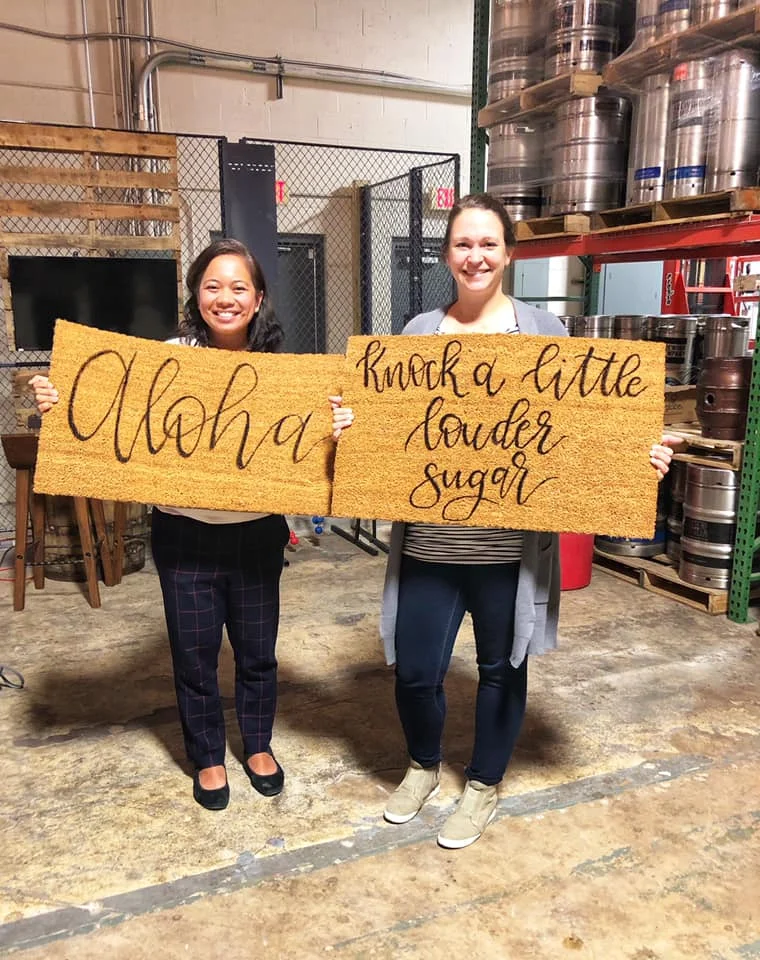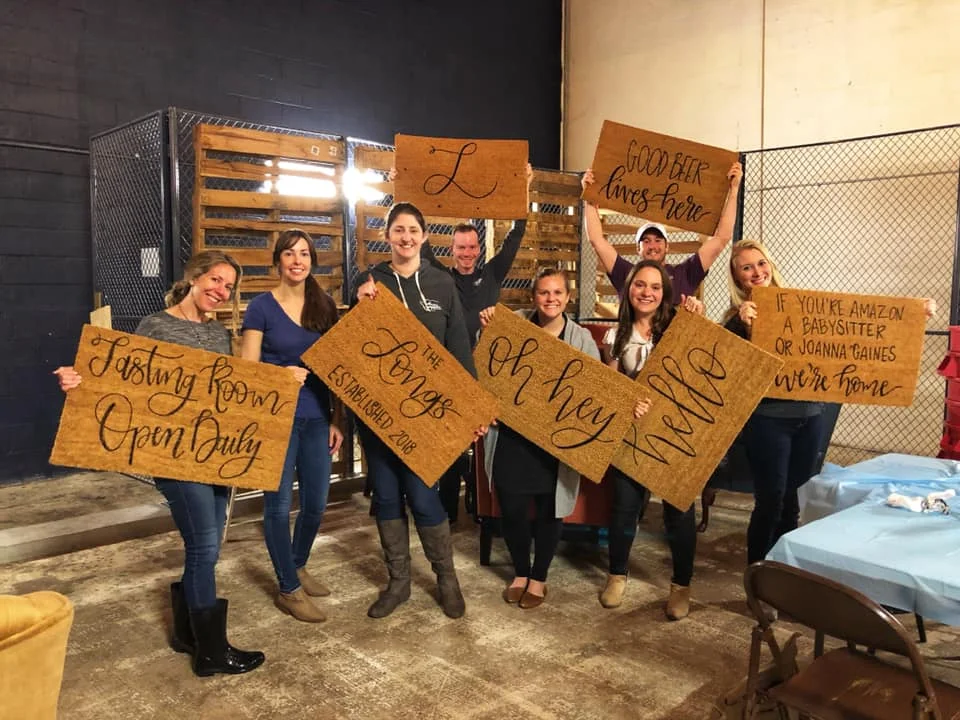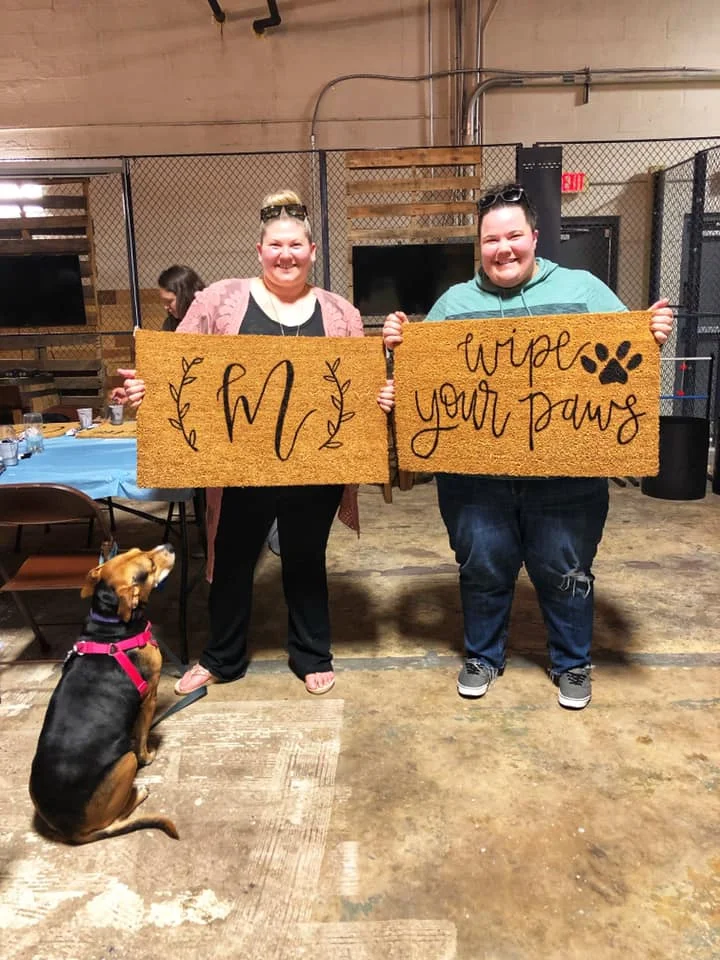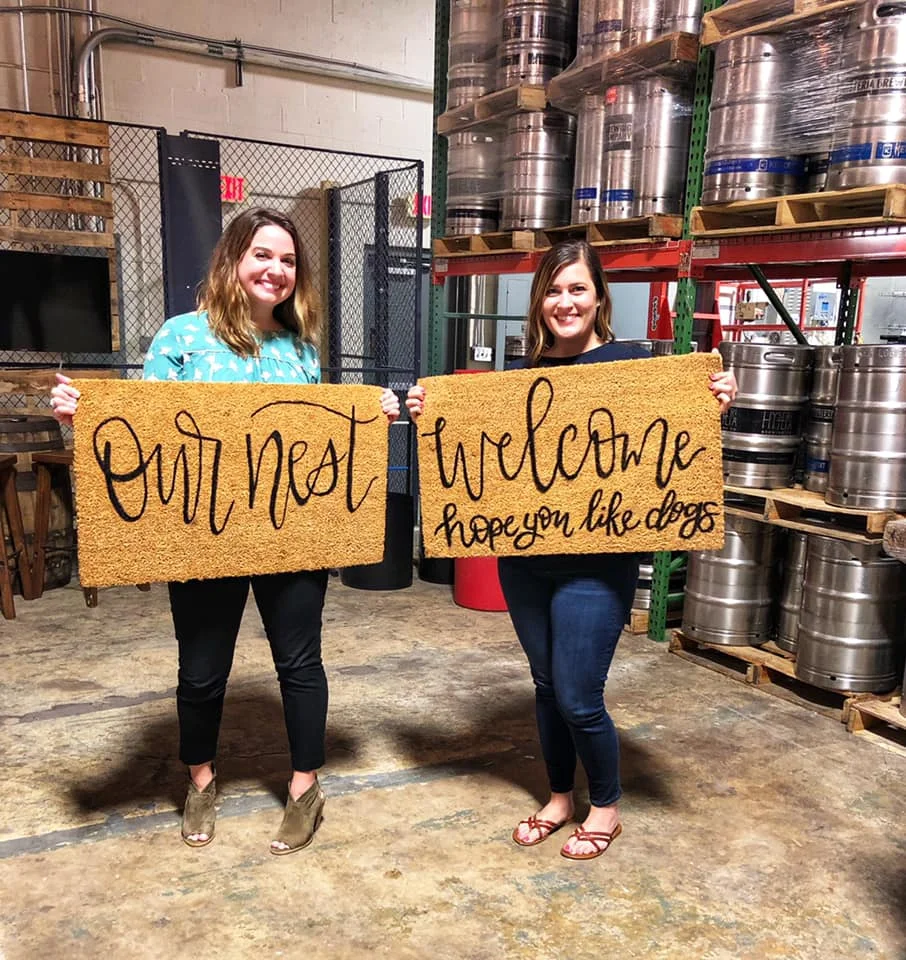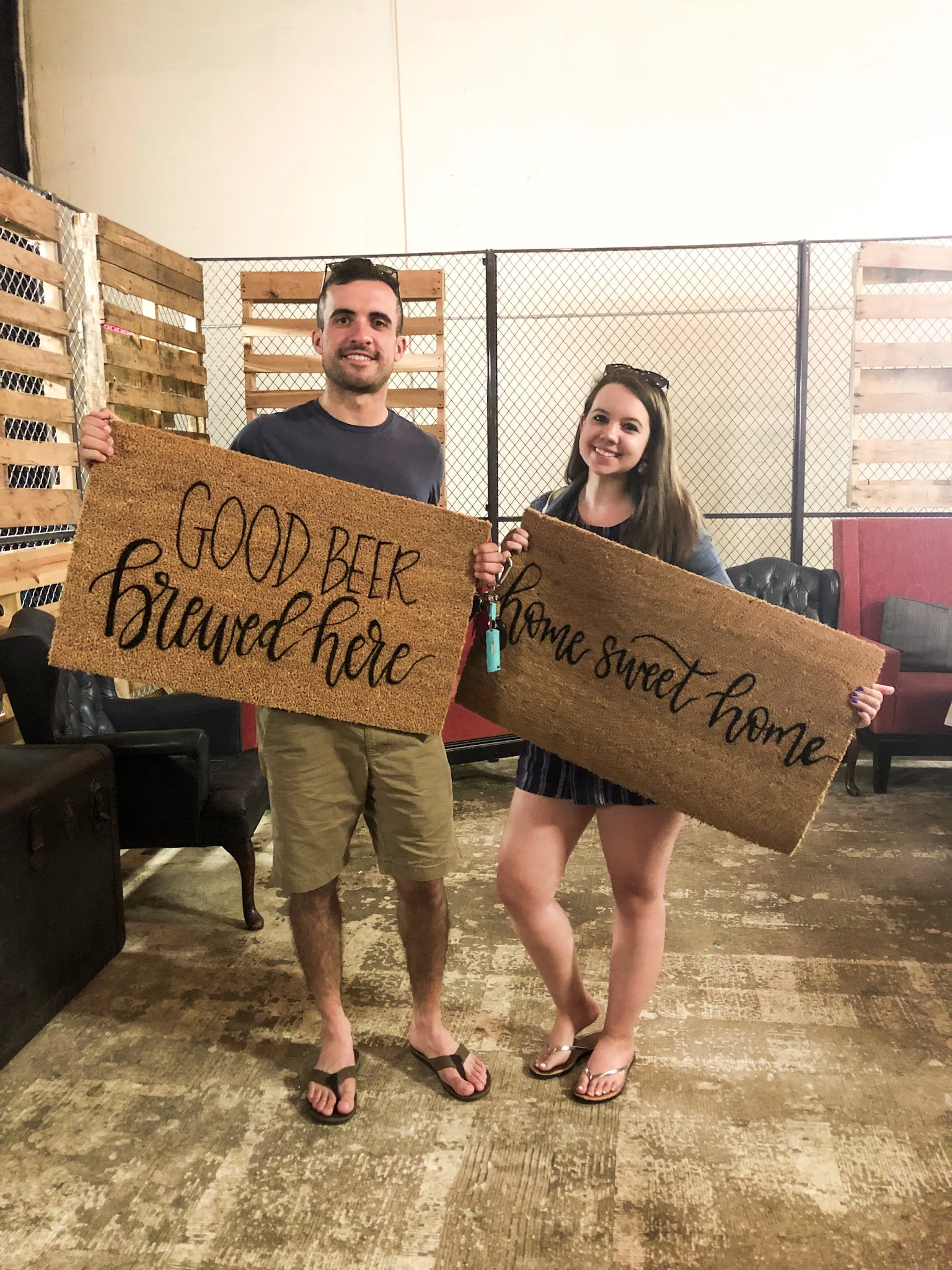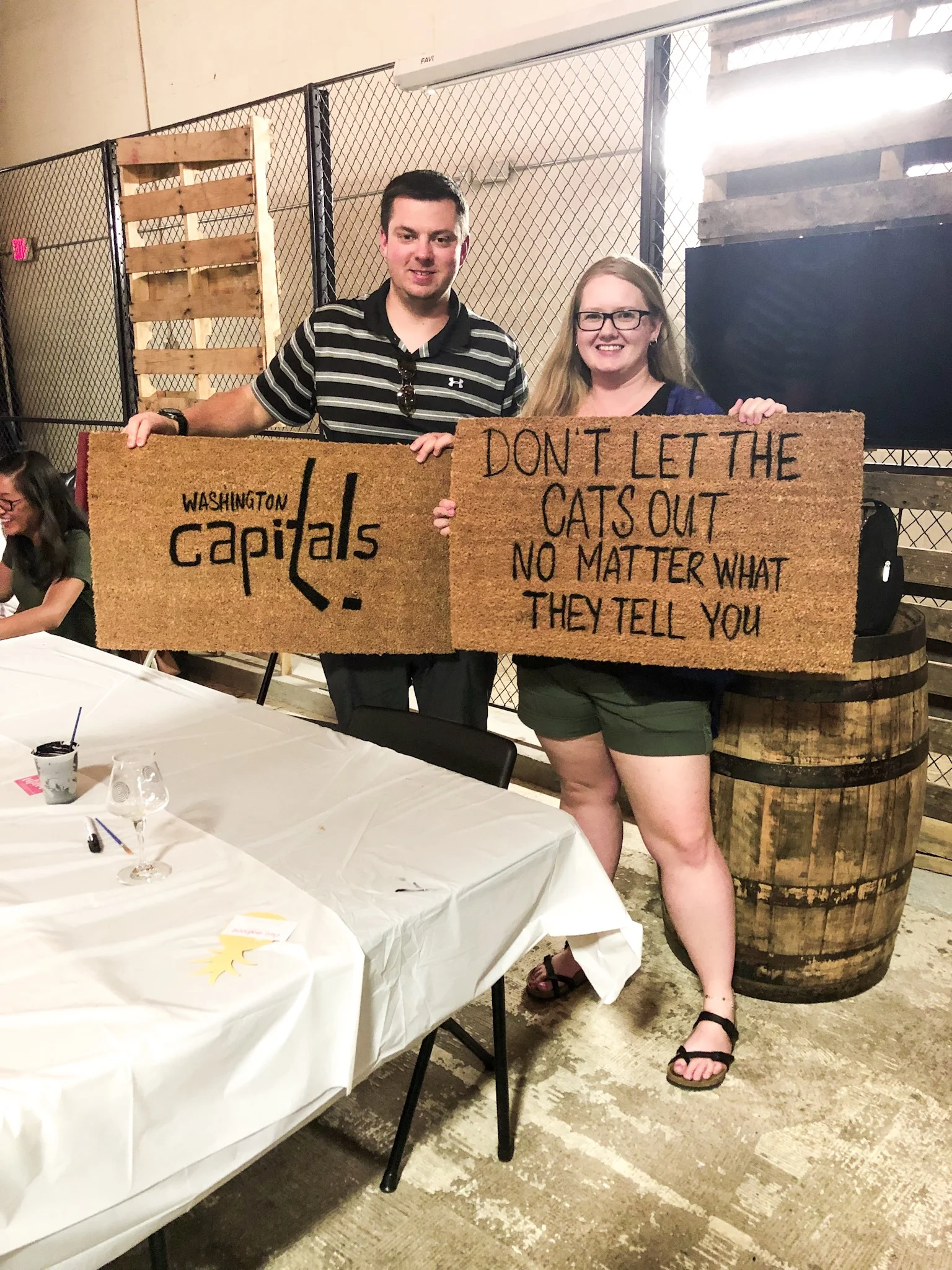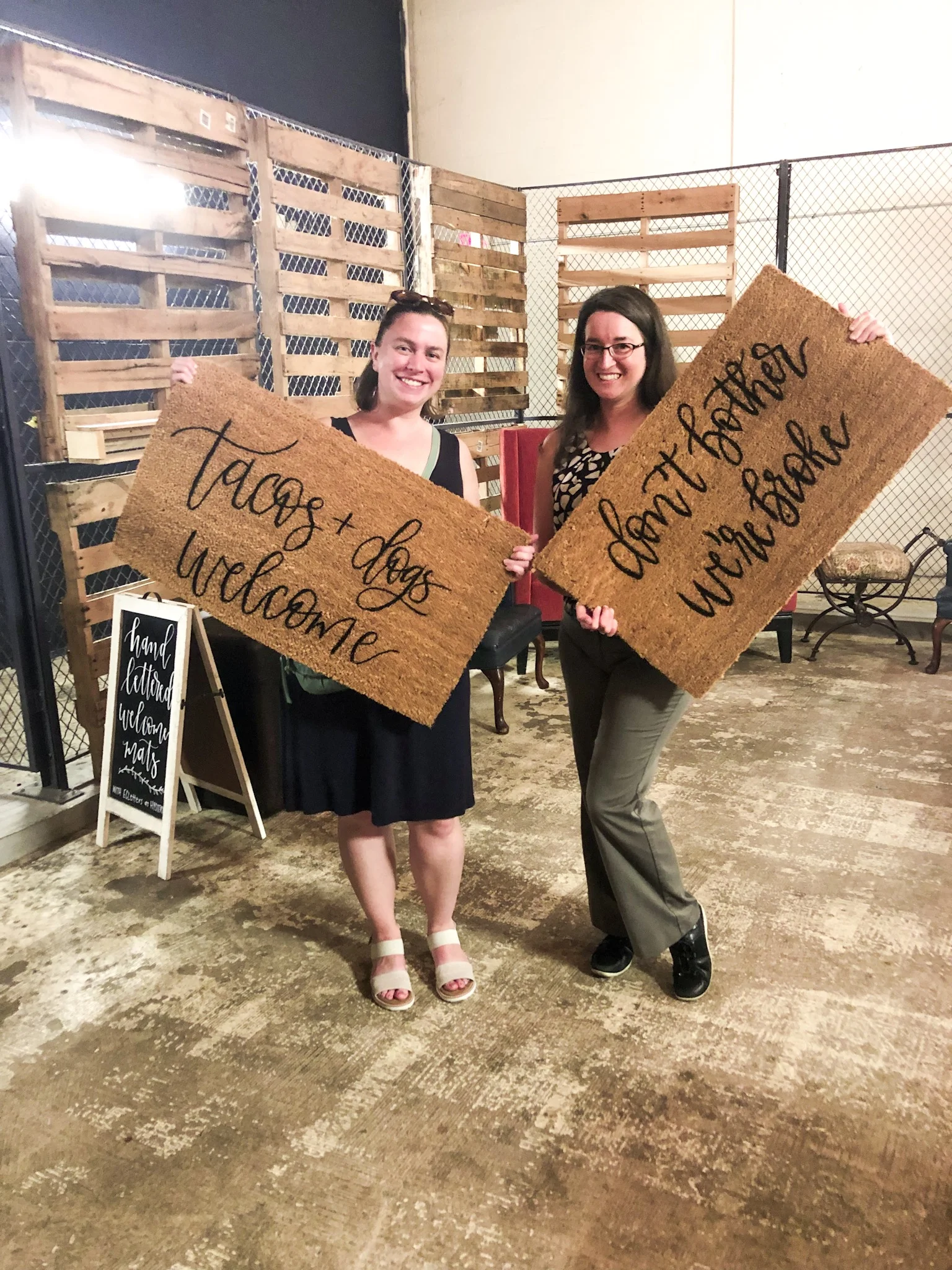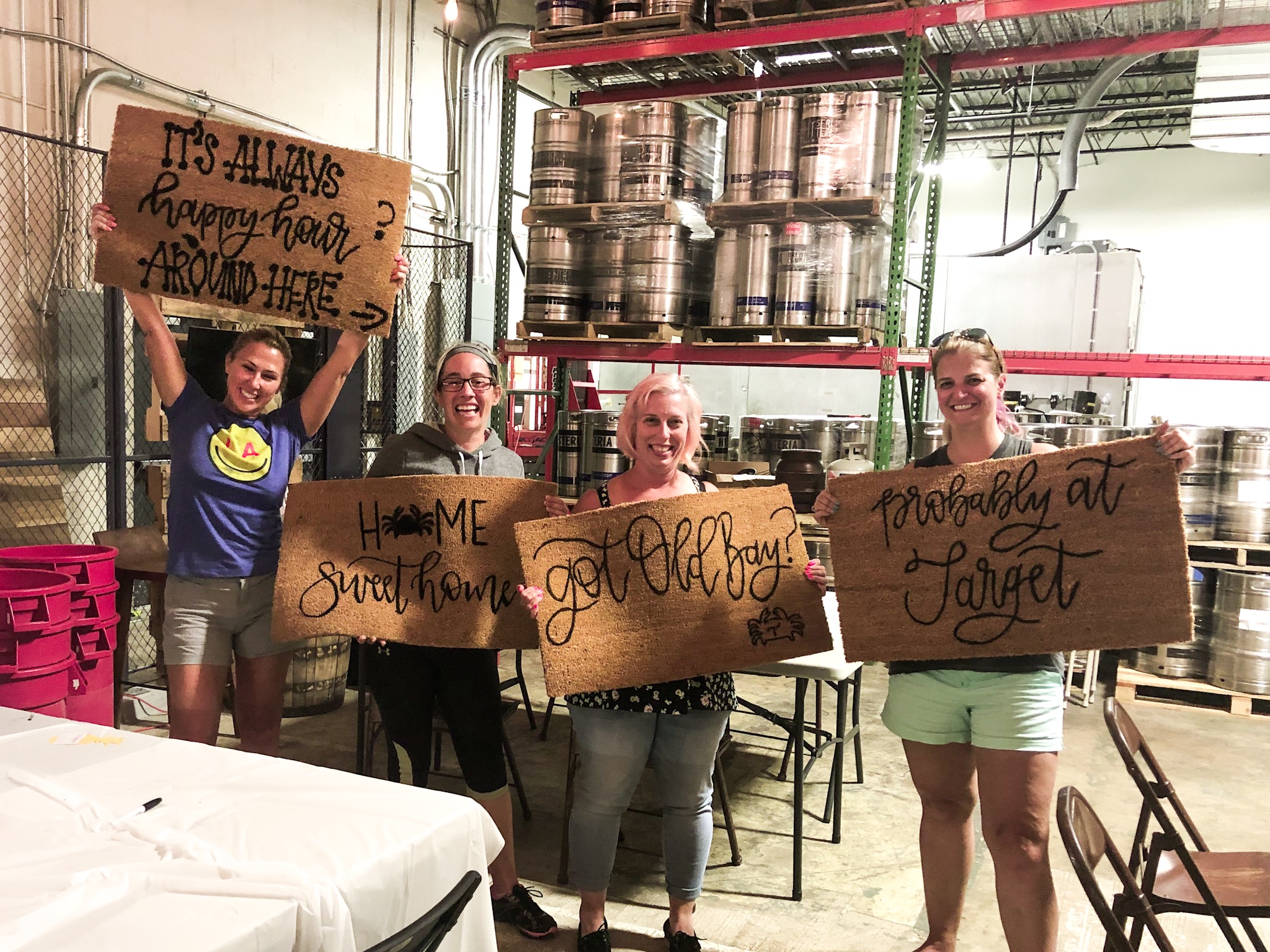
Welcome Mat Class Recap
/Learn more about my hand lettered welcome mat classes and see some fun & creative doormats!
My first two Hand Lettered Welcome Mats classes at Hysteria Brewing Company are under my belt, and they were a ton of fun! Hysteria is a really cool spot located in Columbia, Maryland, easily accessible from Snowden River Parkway. When you walk in, it’s got a great cozy vibe. They frequently have food trucks outside, and you can bring in your own food, too. They have a back room area that is perfect for events (like trivia, musicians, etc), a great selection of beer (my favorite is Tipping Point), and friendly employees. I’m really thankful that I’ve been able to have these classes there and hope to be back for many more!
Attendees purchased their tickets through EventBrite and sent me the phrase that they wanted their mat to say beforehand. A few days before the class, I lettered the mats (just in basic cursive / print) for attendees to paint and on the day of, got everything set up.
When people started arriving, they signed in with me and got a drink ticket to grab a beer before getting settled in. During the class, we went over upstrokes & downstrokes, how to do fauxligraphy and techniques for painting the mats. Attendees filled in the downstrokes on their letters and got painting! The finished products looked awesome. Some people added more of their own flair to their mats with embellishments to the lettering and designs!
Check out the pictures below. How fun are these mats?!